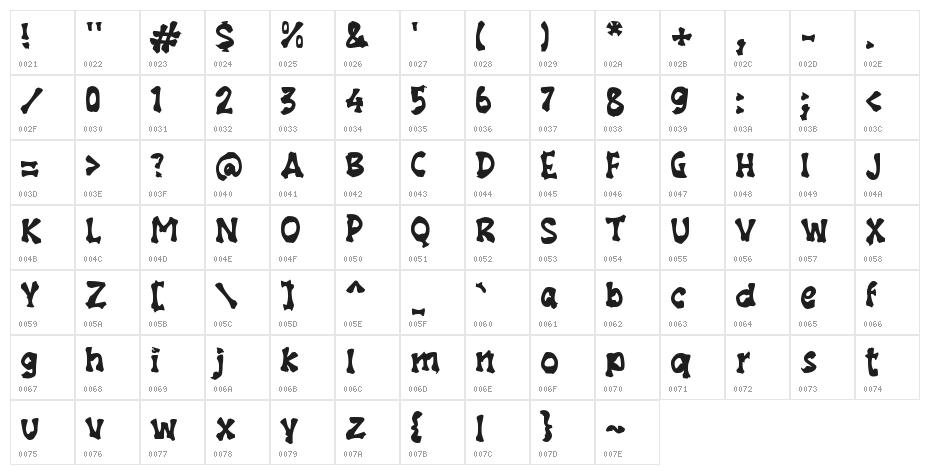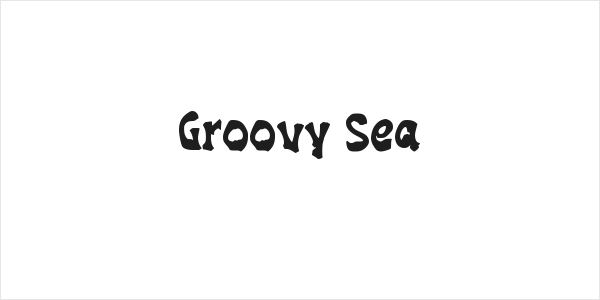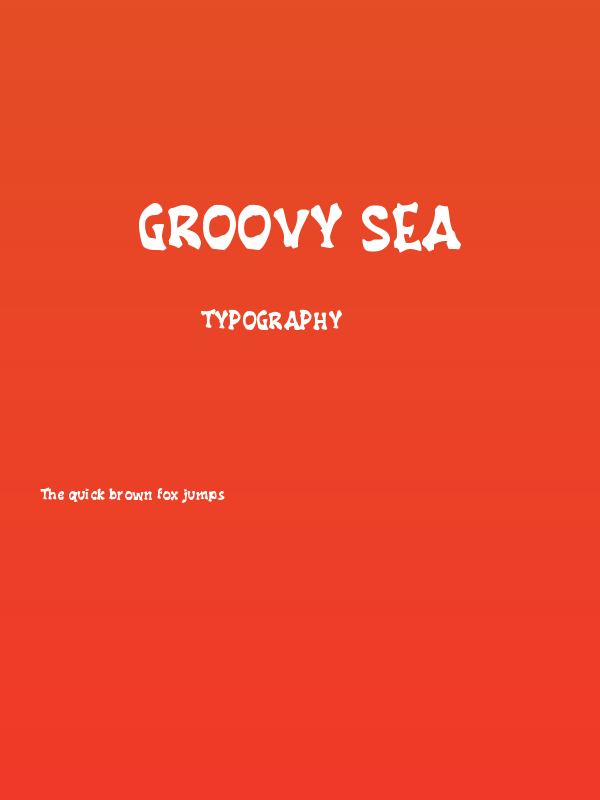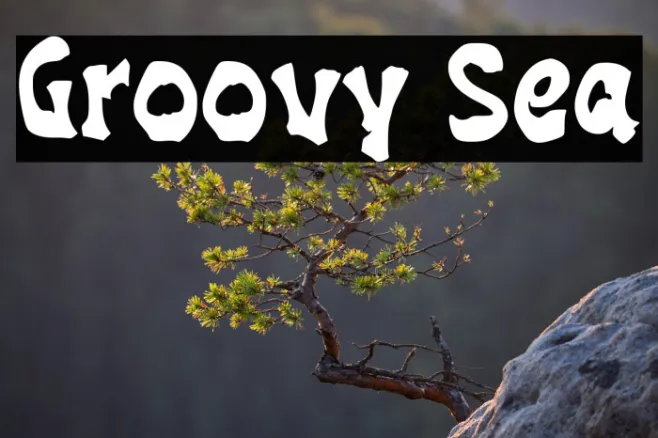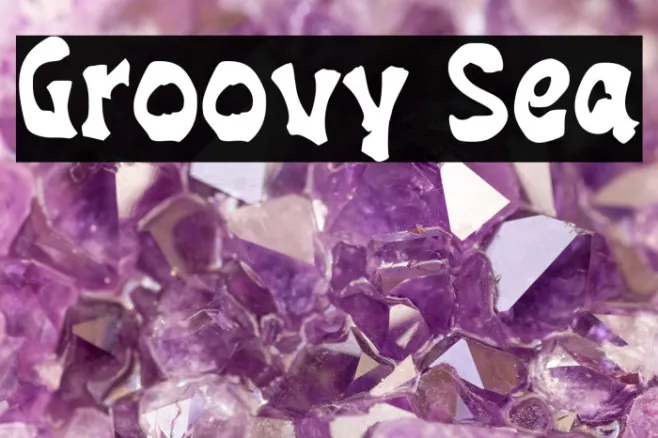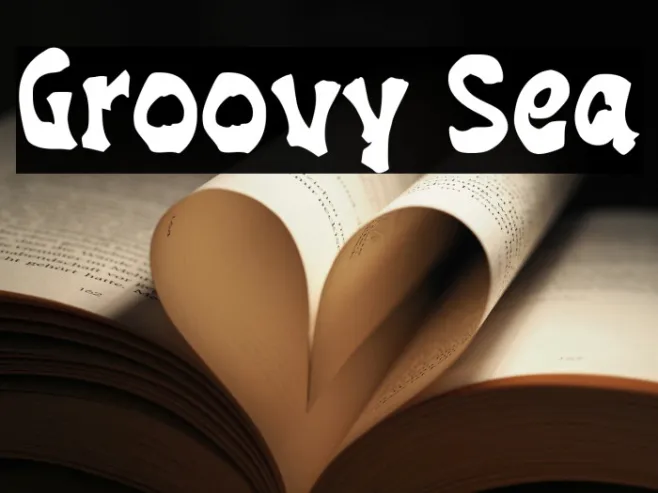
Groovy Sea Font
Groovy Sea Description
This font features a bold and playful design with a distinctly irregular and wavy appearance, reminiscent of hand-drawn or painted letters. The characters have a thick, uneven stroke that gives them a lively and dynamic feel. The uppercase and lowercase letters maintain a consistent style, with exaggerated curves and angles that create a sense of movement. Numbers and special characters follow the same whimsical design, making them suitable for creative and informal applications. The overall look is both eye-catching and unique, perfect for projects that require a touch of fun and creativity.
| Proposed Projects | Ideal for posters, children's books, party invitations, and creative branding. |